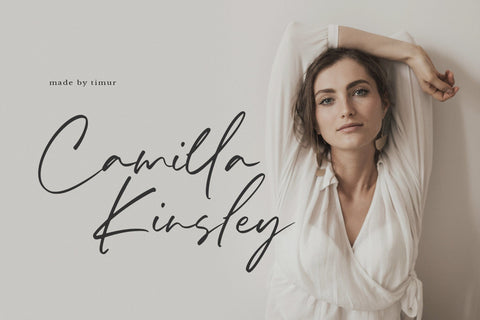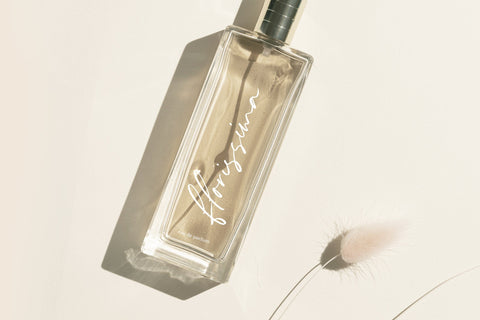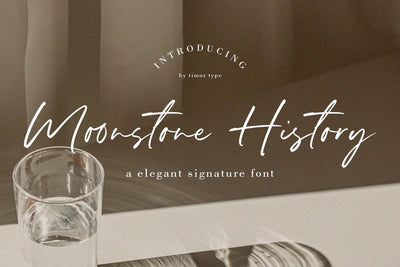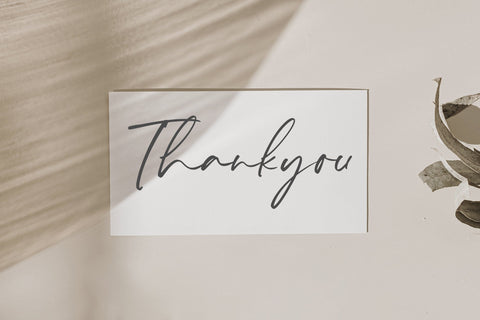
Moonstone History - elegant Signature font
Introducing by Timur type
Proudly Present, Moonstone History
Moonstone History A elegan signature Font , which was created with great care and specially created for you
Moonstone History is perfect for product packaging, branding project, megazine, social media, wedding, or just used to express words above the background.
- Ligature